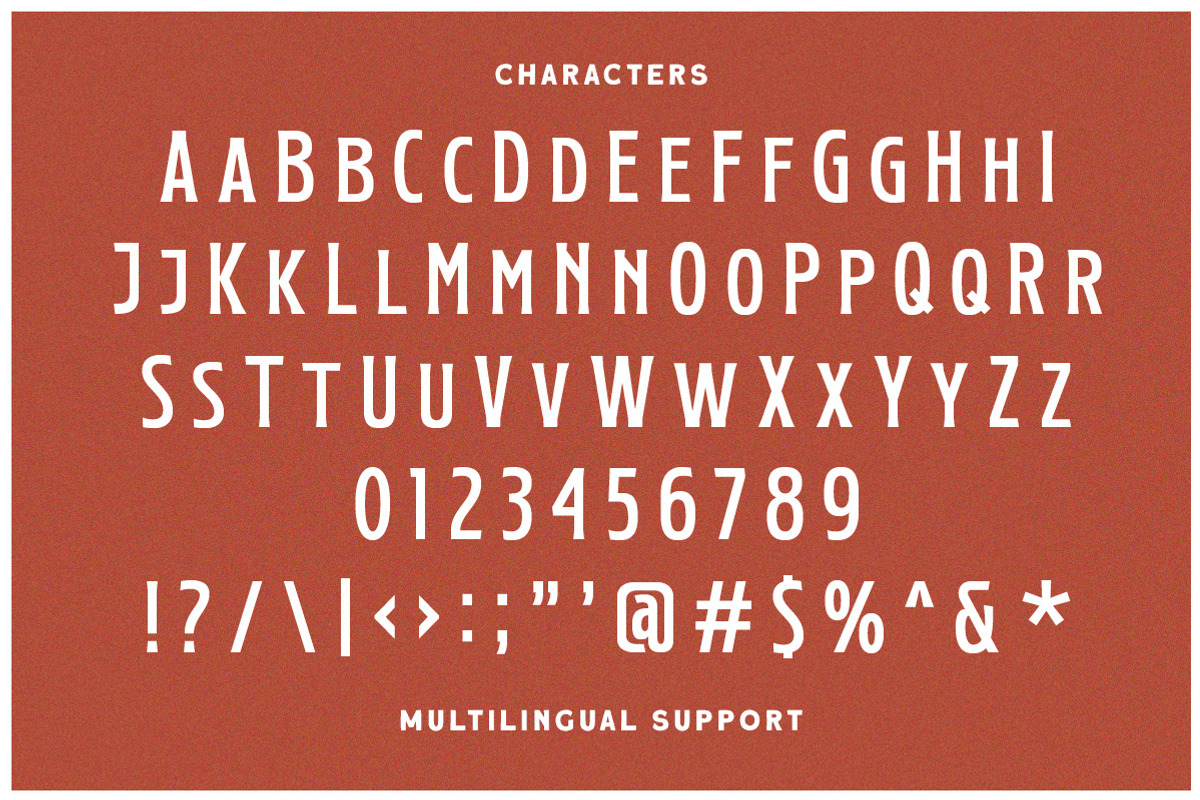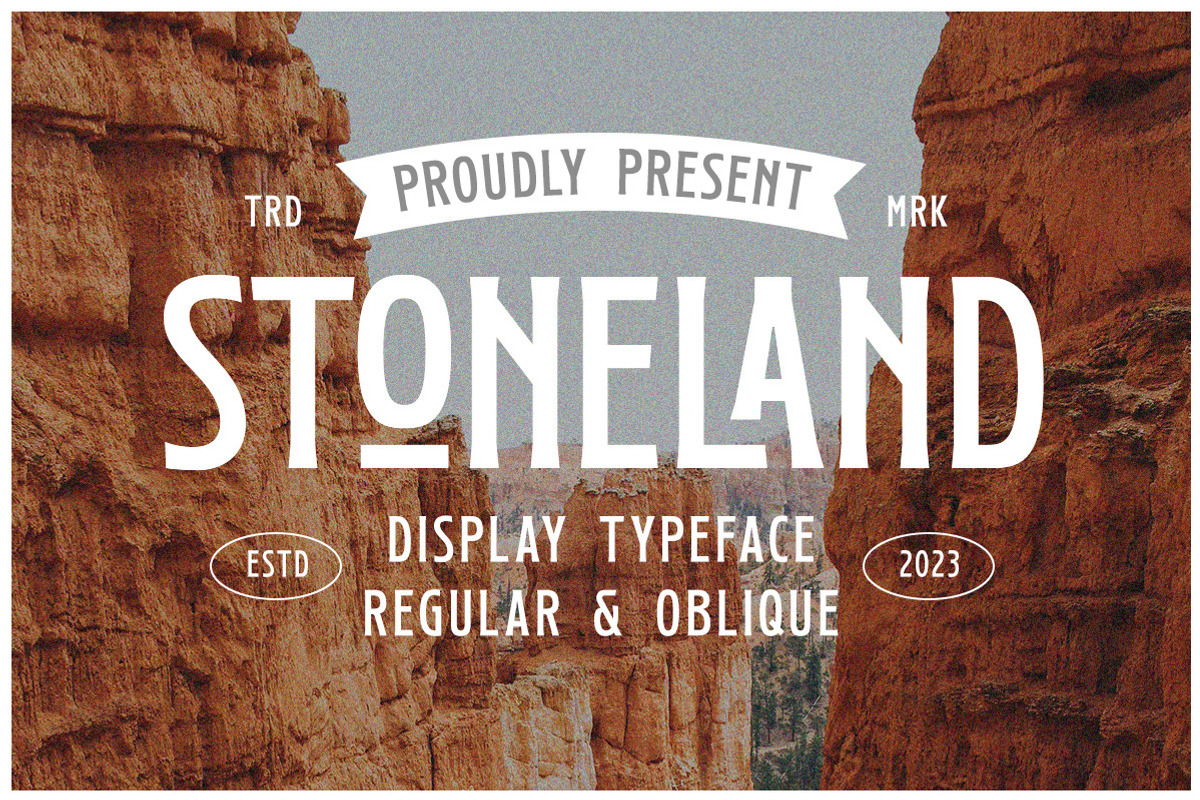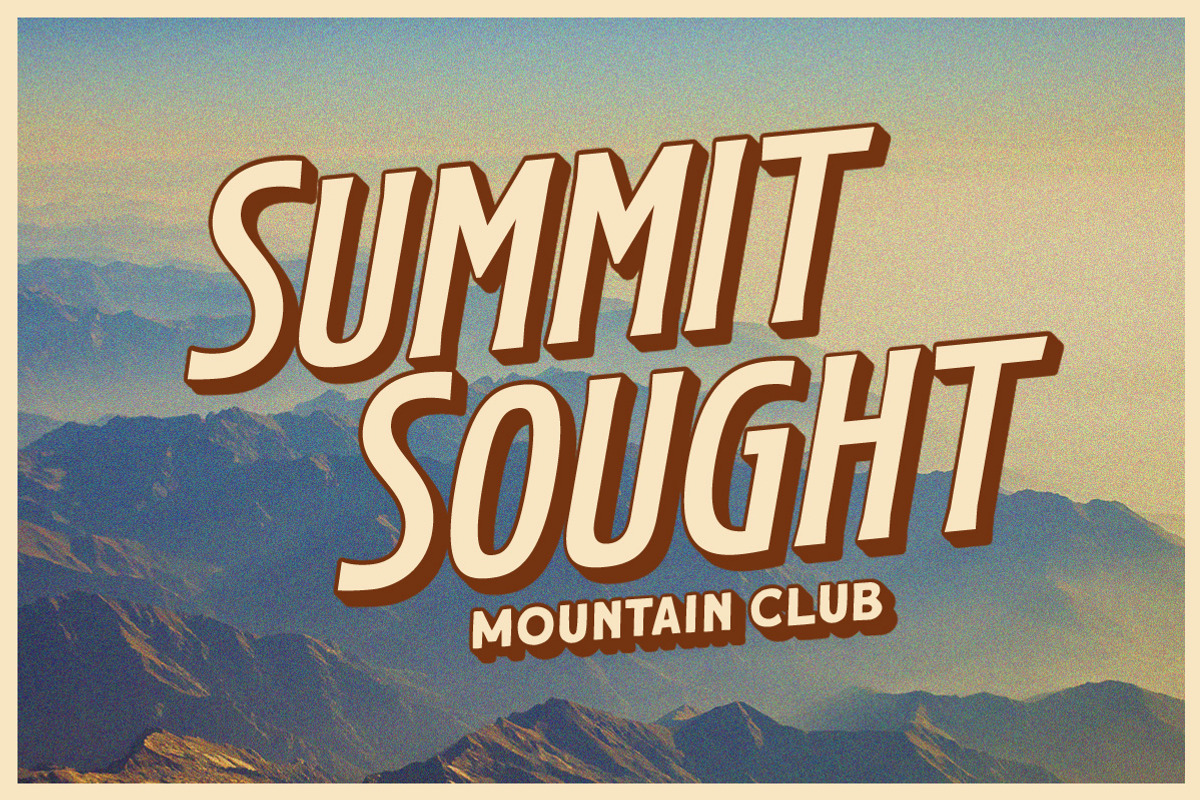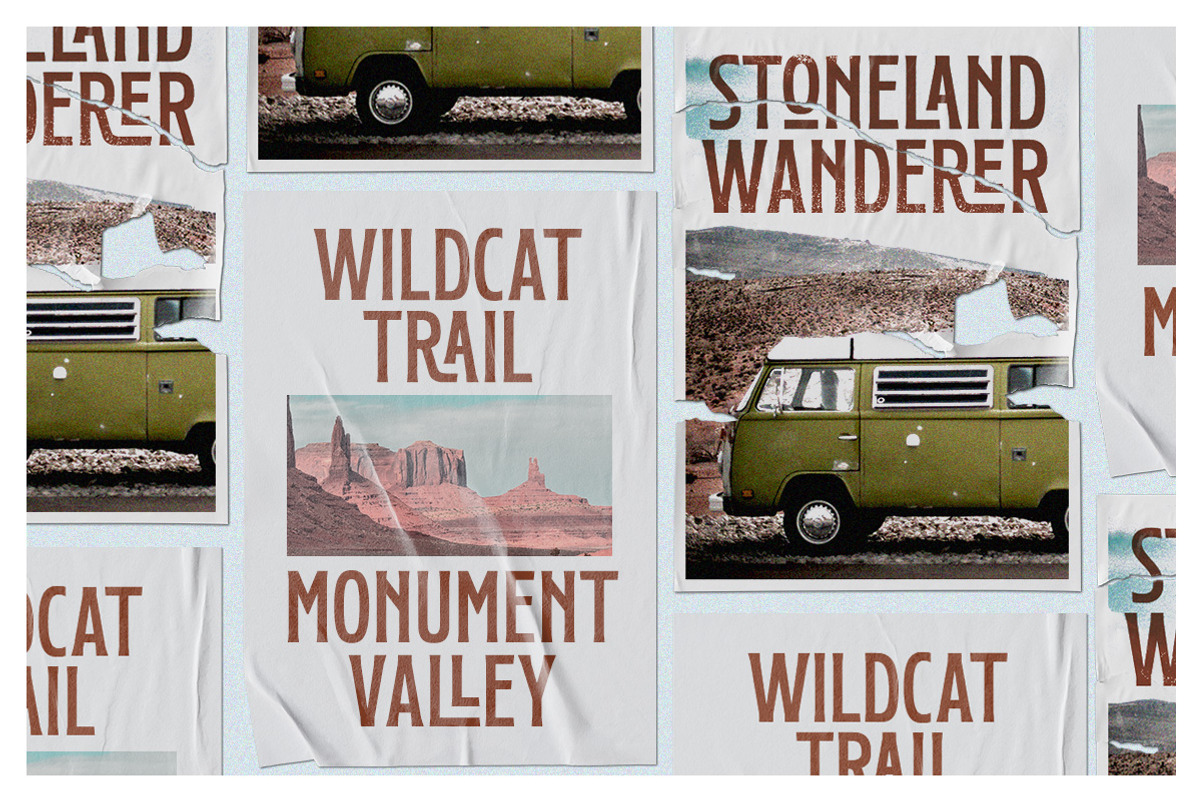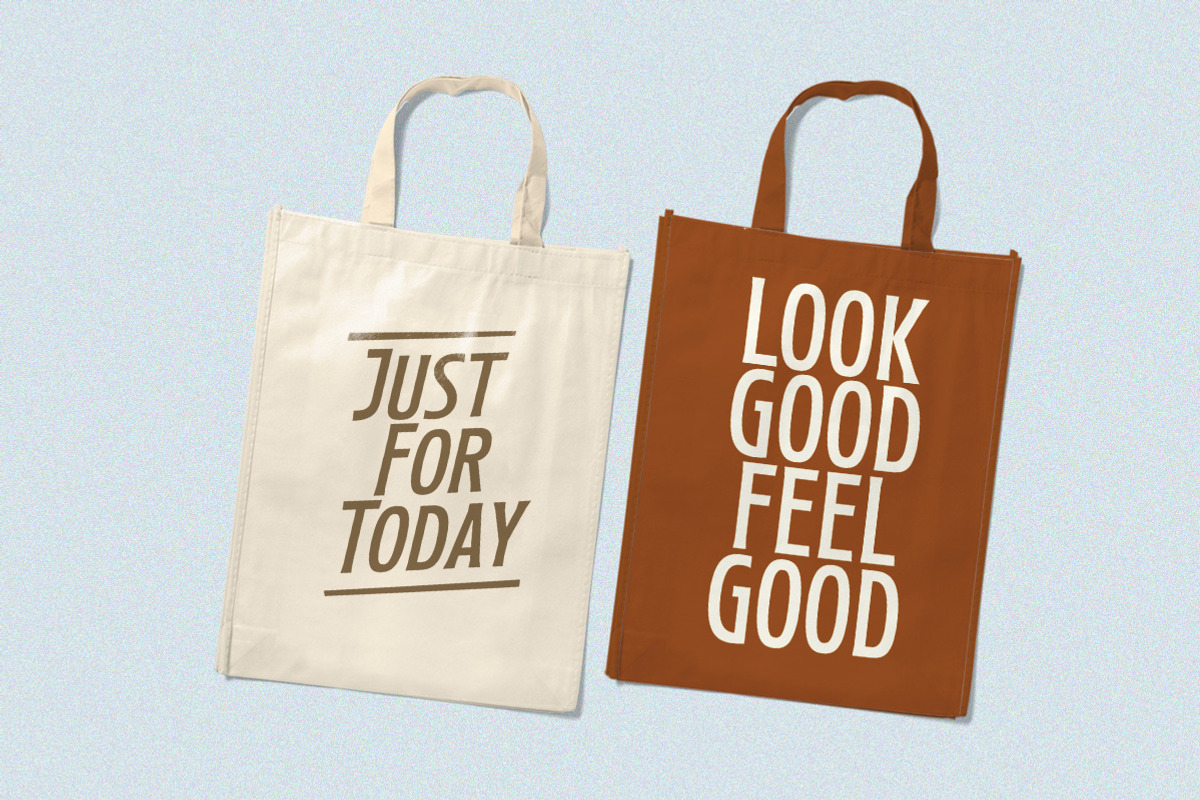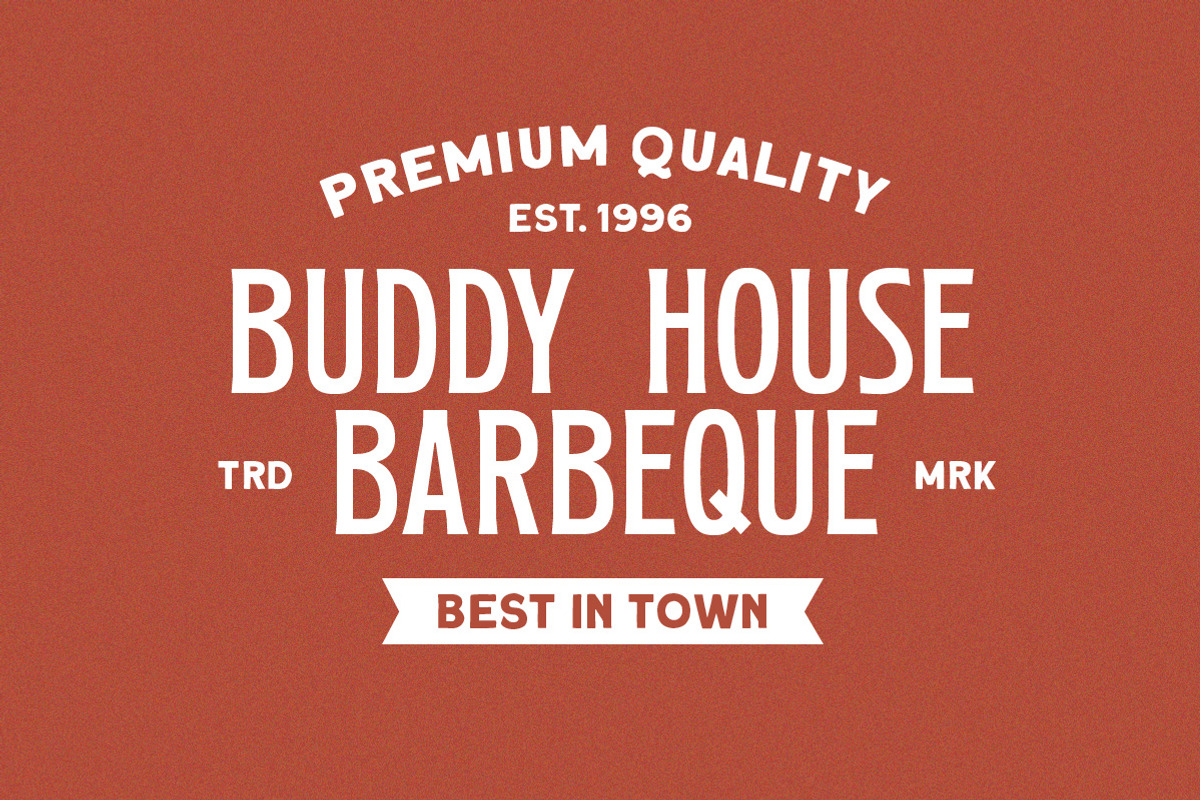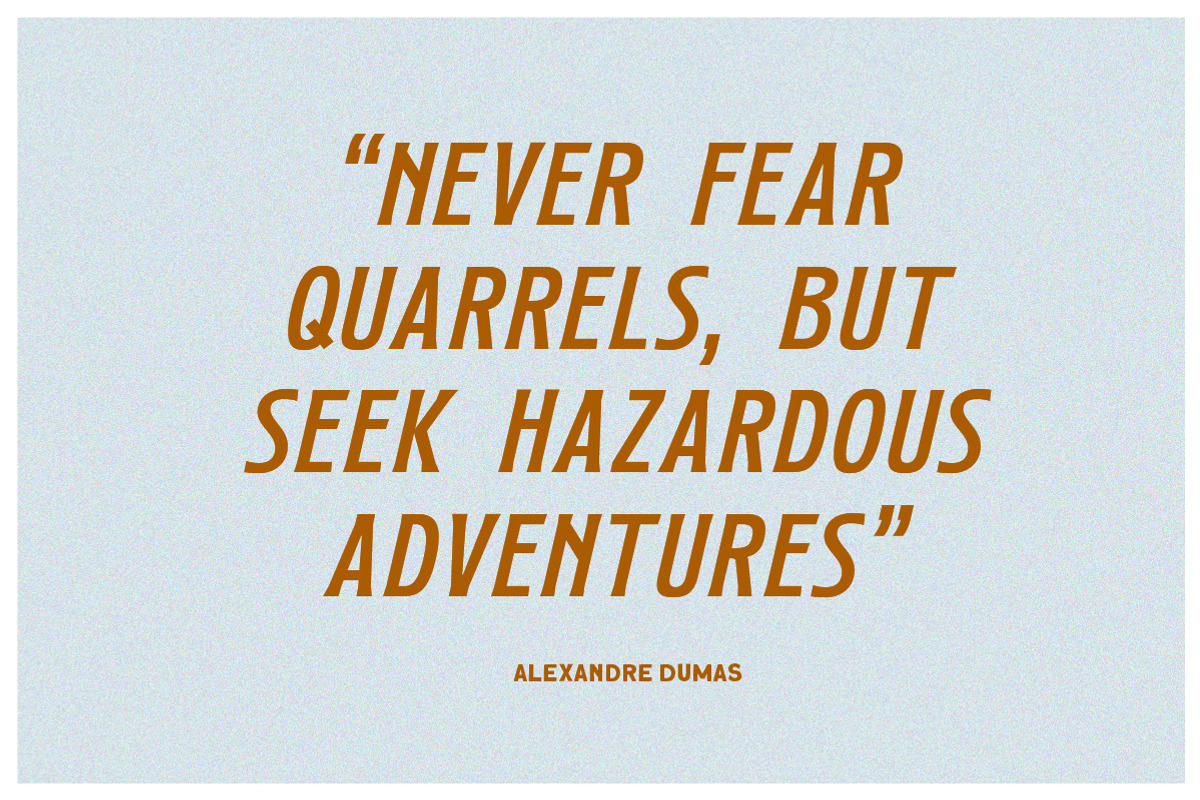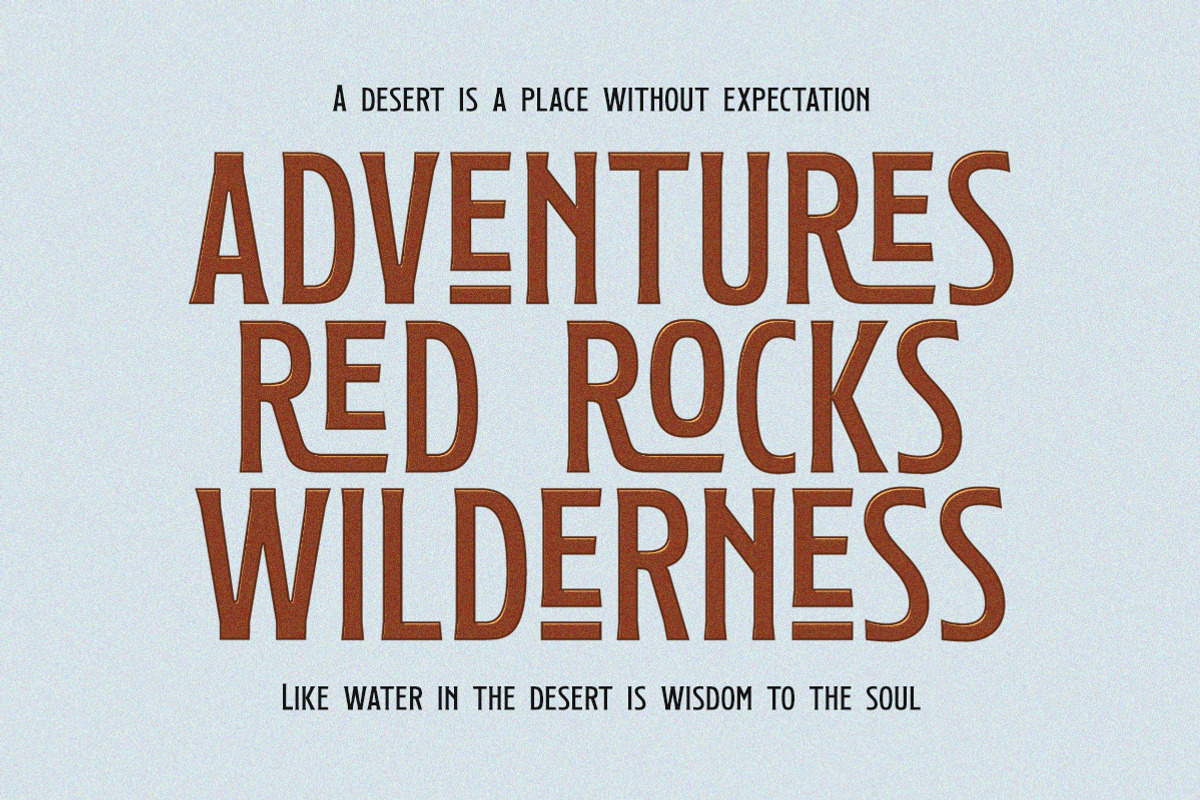
Stoneland- Display Font
Get ready to stand out with Stoneland, a stunning display font with many ligatures that will elevate your designs to the next level. Stoneland is perfect for those looking to make an impact with their designs, thanks to its strong and bold style.
- Alternates & ligatures